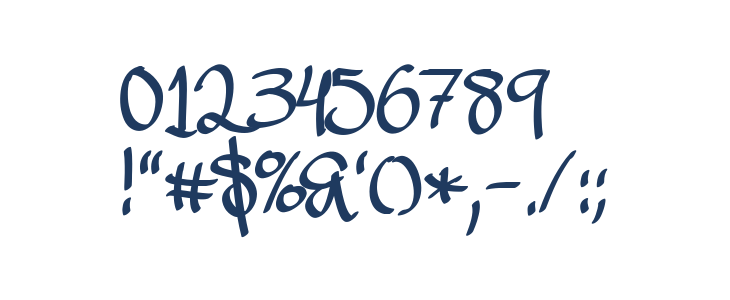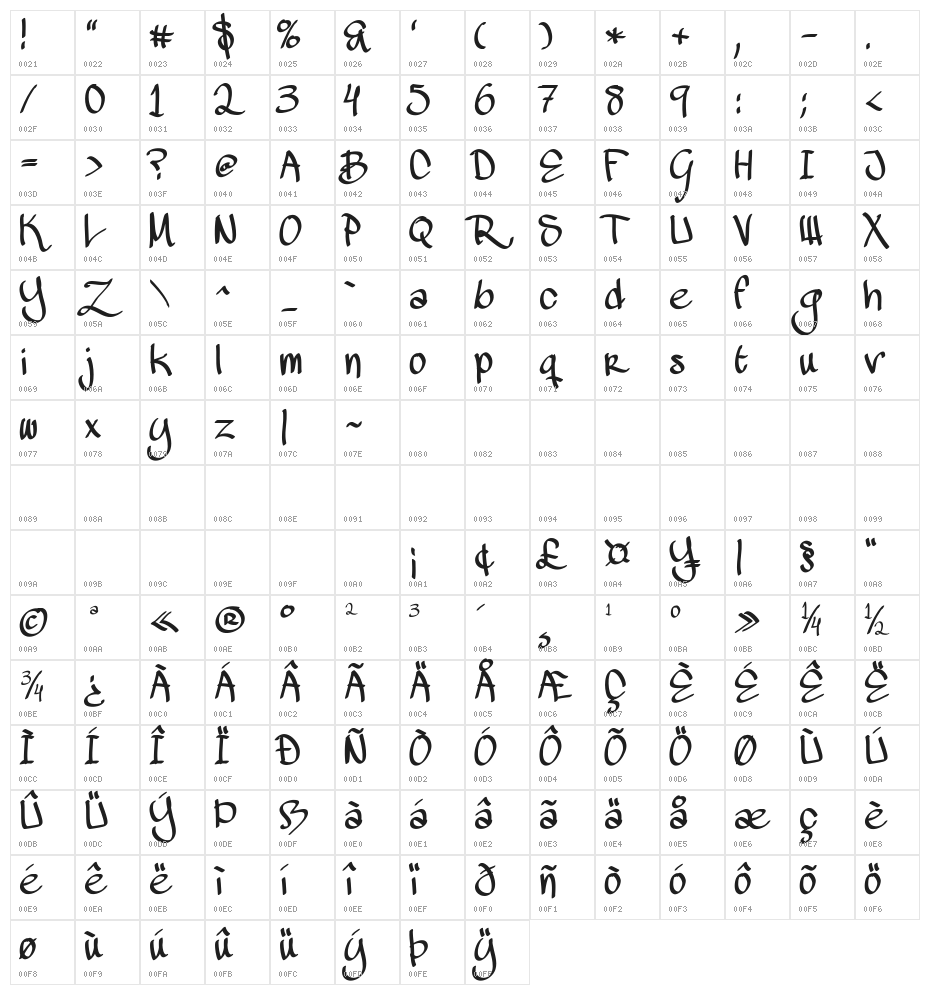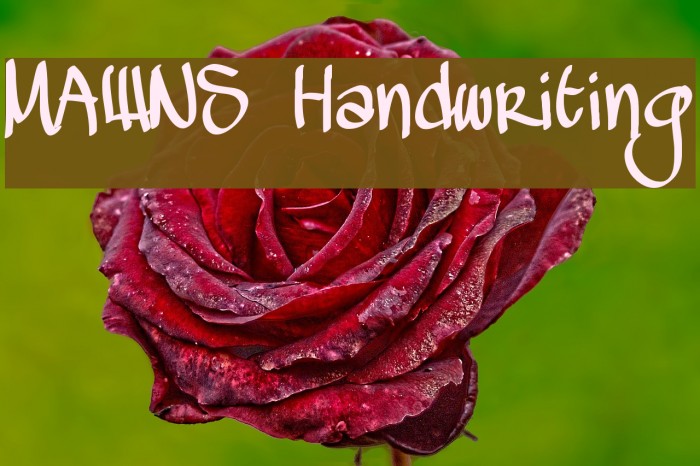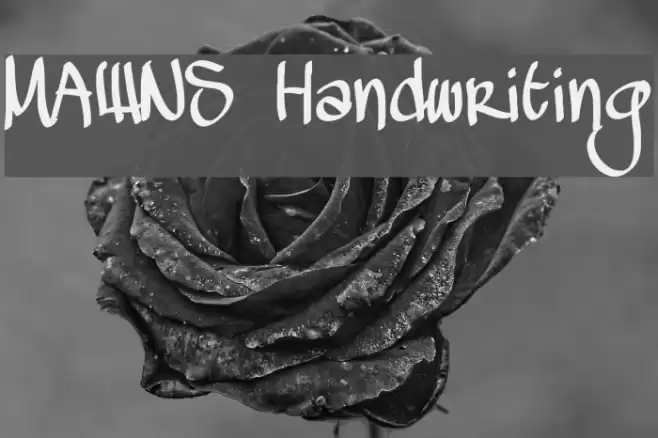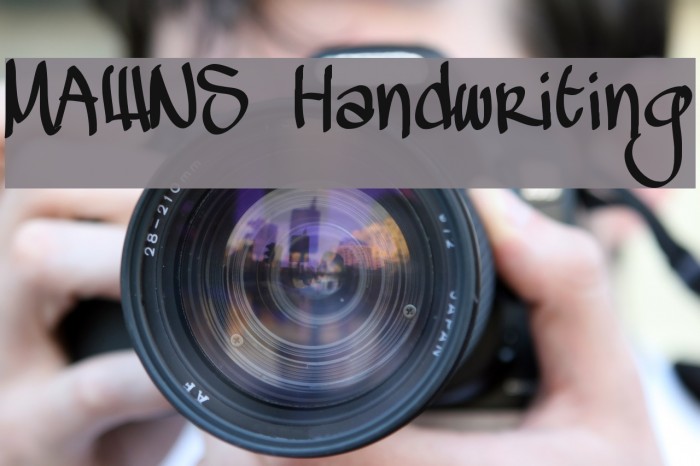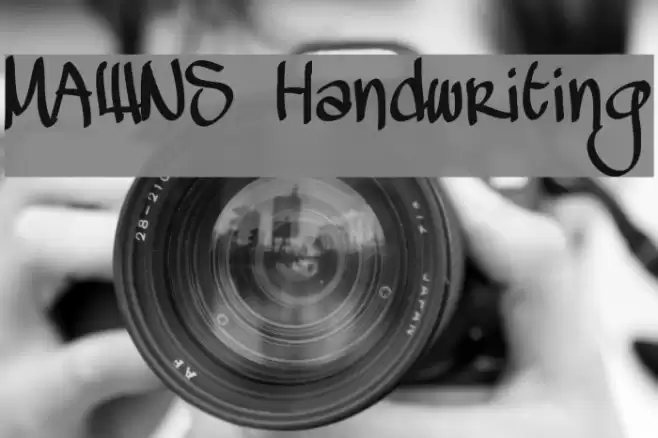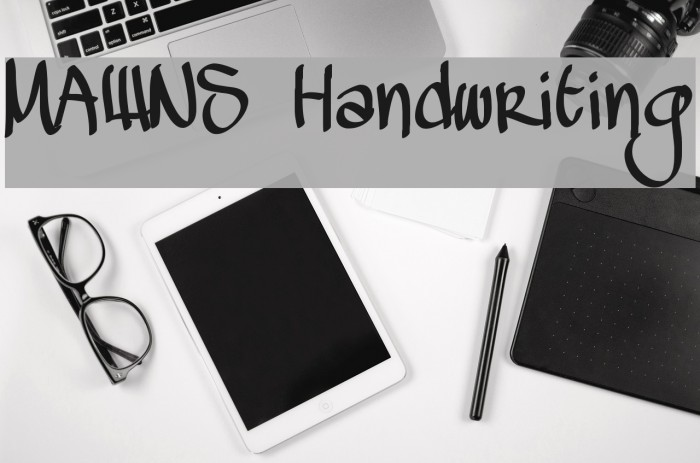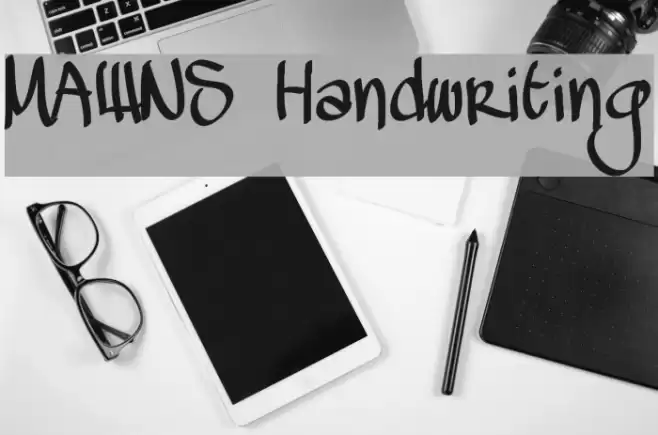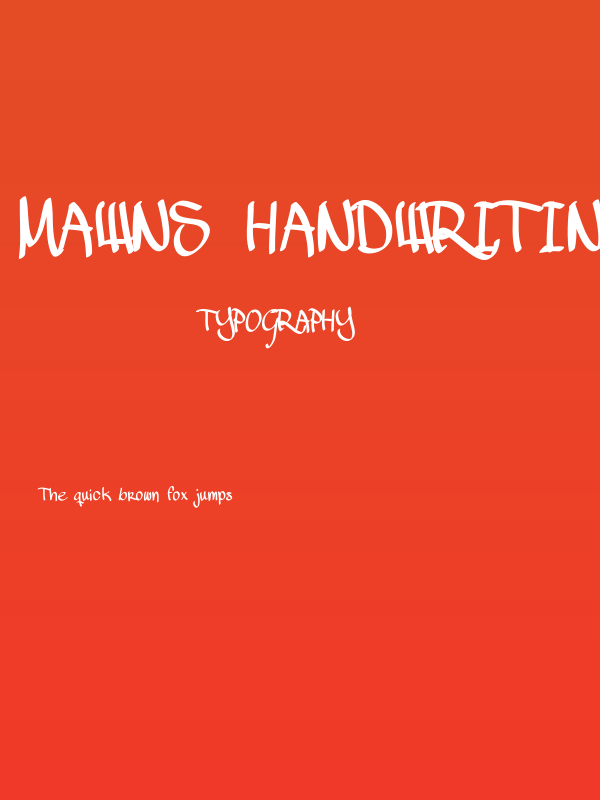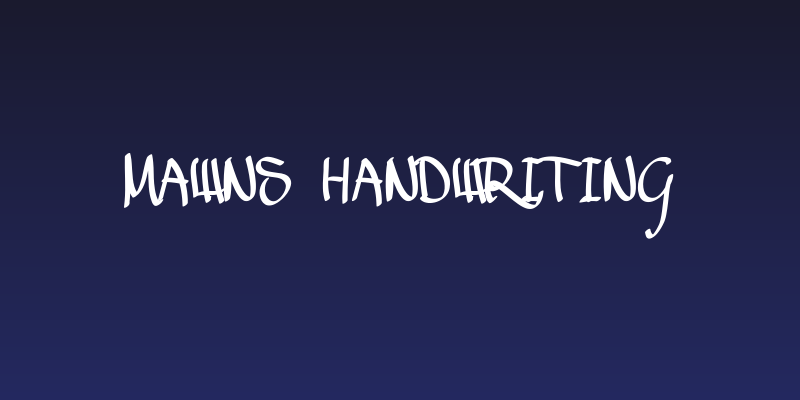
MAWNS Handwriting Font
MAWNS Handwriting Description
This font features a dynamic and expressive handwritten style, characterized by its fluid and organic strokes. The uppercase letters exhibit a bold and confident appearance, with varying stroke widths that add a sense of movement and energy. The lowercase letters maintain a consistent flow, complementing the uppercase with their rounded and slightly slanted forms. Numbers and special characters are crafted with the same lively spirit, ensuring a cohesive look across all elements. The overall design conveys a sense of creativity and personal touch, making it ideal for projects that require a humanistic and approachable feel.